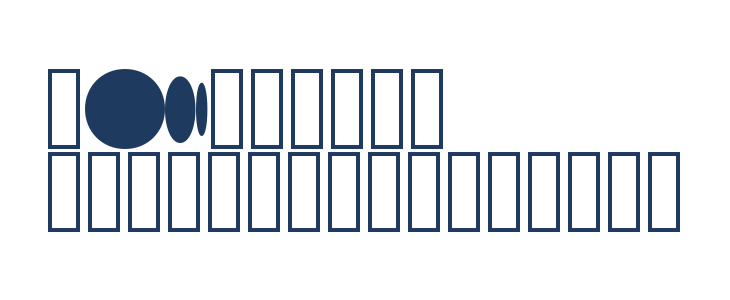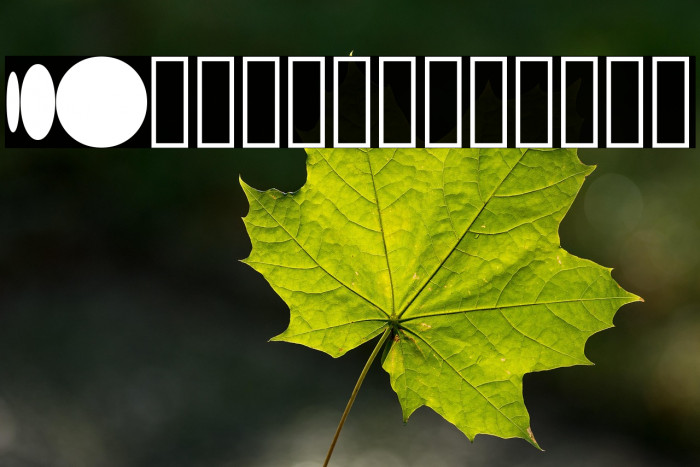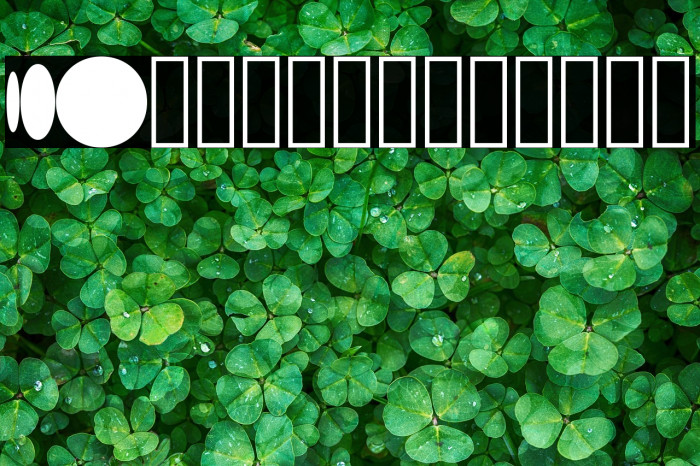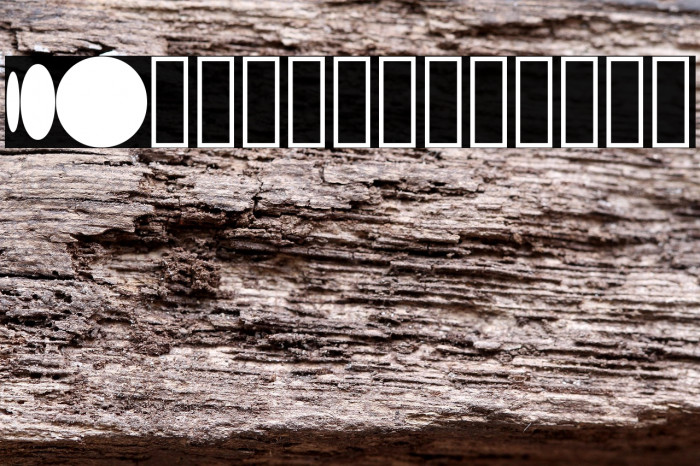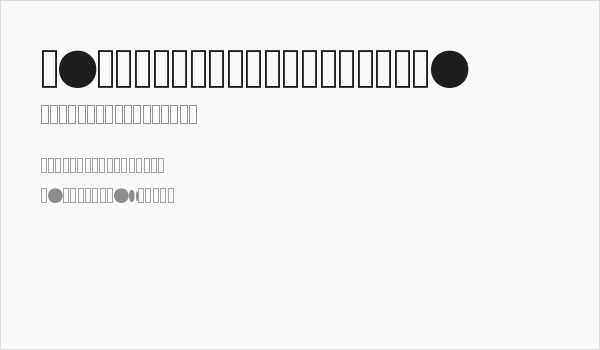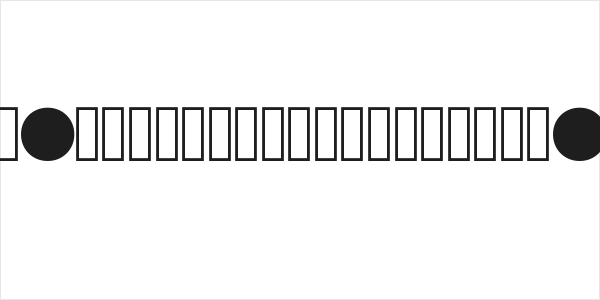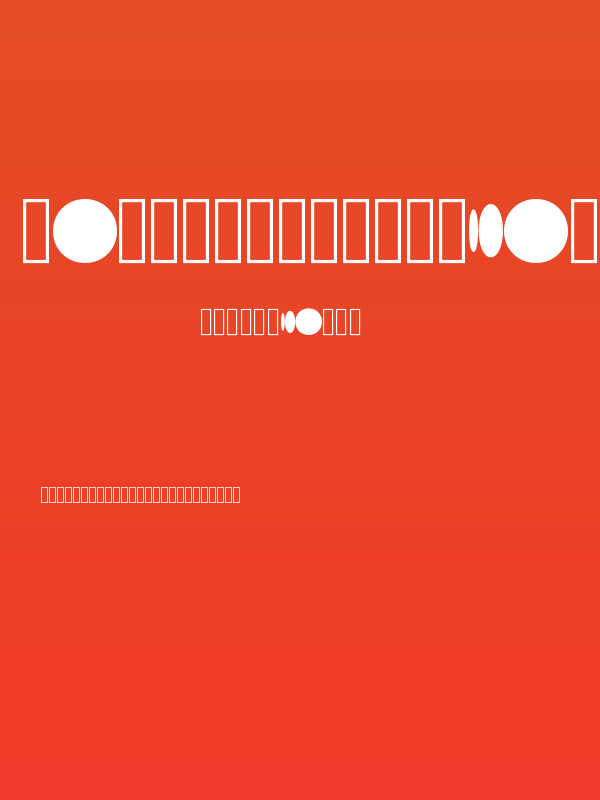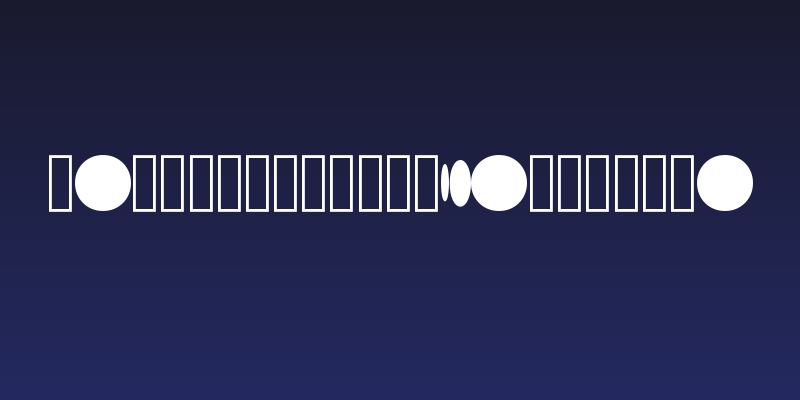
S10 Beehome Mark BH 1 Font
A decorative font featuring geometric shapes and outlines, resembling a bee motif.
Overall StyleModern, Decorative
Use CaseLogos, Decorative headings
Proposed ProjectsLogos, branding, decorative headings.